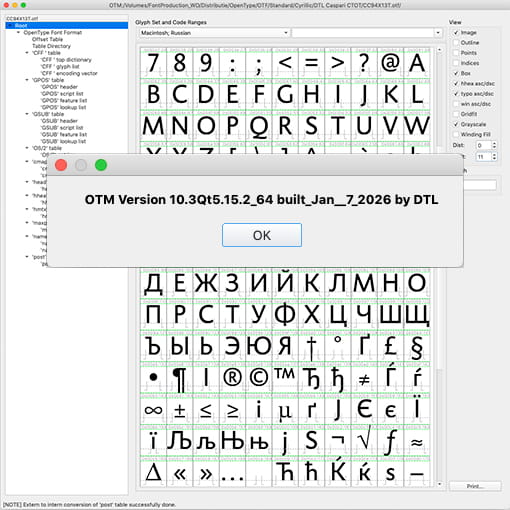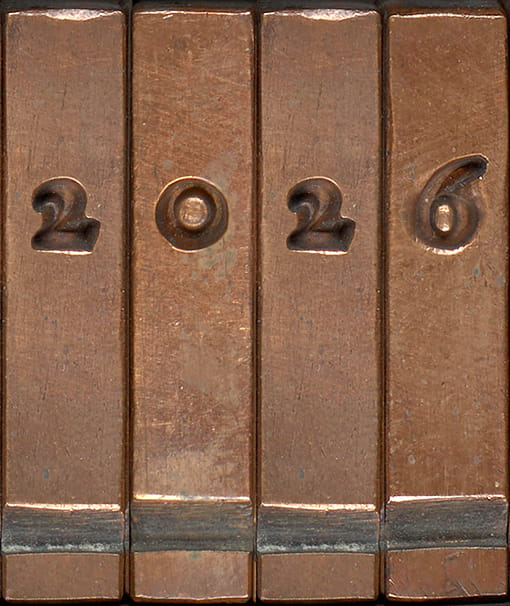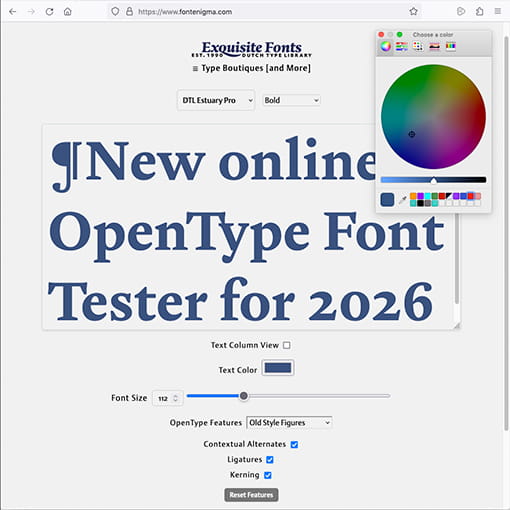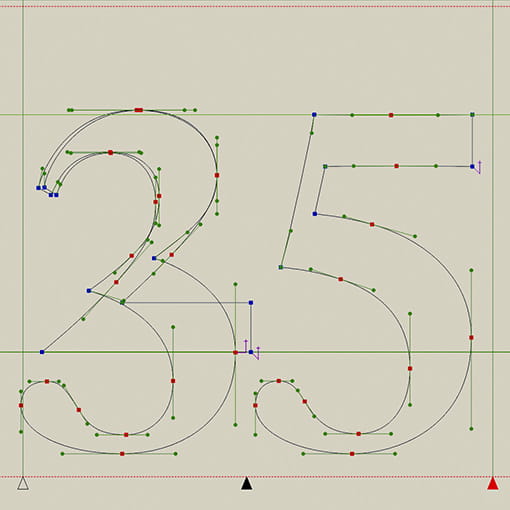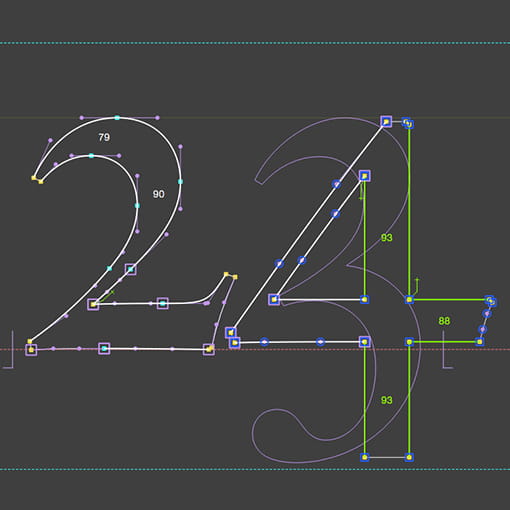
| dtl OTMaster 10.3 Released[Posted: Wednesday January 21, 2026]Since its first appearance, otm has been a success, particularly because it offers comparatively accessible control over highly complex technical matters. Now, after many years of additional development and iteration beyond the last retail version (8.9), otm 10.3 is finally available. This release introduces new tools and features, along with significant improvements to table editing. Moreover, ufo export has been enhanced. The release also includes several minor bug fixes.
| Dutch Type Library in 2026 [Posted: Saturday January 3, 2026] With this row of justified matrices from Reale Romaine by the Flemish punchcutter Hendrik van den Keere (ca. 1540–1580), we wish you all the best for 2026! This type model, which Van den Keere cut in 1575 and was first used by Plantin in 1576, served as the source for the roman of dtl VandenKeere some 35 years ago.
In the past year, we have further automated dtl’s font production as part of the transition of our entire OpenType library from ‘Standard’ to ‘Professional’ and ‘Expert.’ We have also laid the groundwork for variable-font production, using, of course, our own exquisite tools. Additionally, we will be releasing several new typefaces in 2026, including dtl Romulus, which have been in development over the past three decades. Soon, we will also release version 10 of dtl OTMaster, which now natively supports Apple Silicon and is code-signed for macOS to ensure smooth installation.
Last year, we developed a new obfuscated font tester, which will eventually replace the current Exquisite Fonts website later this year. Additionally, we have created a test environment for webfonts, in preparation for the upcoming new ‘Professional’ versions we are producing specifically for the web. |
| Obfuscated Font Tester [Posted: Monday November 3, 2025] Unfortunately, fonts are often harvested and redistributed for free by third parties without the consent of the copyright holders. Fonts exposed on the web are relatively easy to collect once served in a browser. While extracting them is both unethical and legally questionable, it still occurs, including via type testers designed to benefit the graphic-design community.
To mitigate this, we developed FontEnigma, a web environment for testing dtl fonts as securely as possible. FontEnigma applies obfuscation at both the font and browser levels: Unicode code points are scrambled, contours are simplified, and glyphs rearranged. This ensures that fonts displayed online are unusable outside the FontEnigma environment. Additionally, served woff2 files are xor-encrypted and decrypted only in the browser. Fonts are loaded via FontFace and referenced with temporary ‘blob: urls’, which expire on page refresh or close. This makes it considerably harder to download the font files directly.
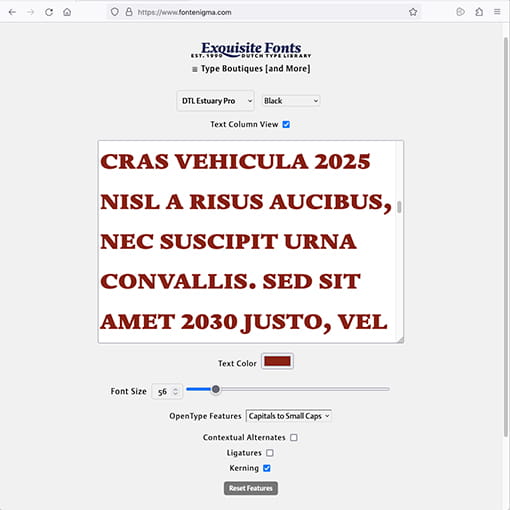  The goal is to implement the new structure on the ExquisiteFonts website in about a year. |
| Origin of Type Frameworks [Posted: Tuesday May 13, 2025] It is essential that our field embraces diverse perspectives and teaching methods. Traditional type-design education often begins with drawing individual letterforms, followed by iterative spacing adjustments. This detail-first approach encourages ‘eyeballing’ and internal corrections, rather than working from broader, pattern-based structures. As a result, what could be concrete, measurable, and reproducible often becomes unnecessarily opaque.
Patterning, and the standardization it entails, has always been central to movable type. Early punchcutters relied on the intrinsic standardization in handwritten models to systematize font production, organizing letterforms within fixed-width rectangles. This method ensured consistency, efficiency, and industrial scalability –key to both design quality and industrial strength.
The new Origin of Type Frameworks (otf) course, taught by Dr. Frank E. Blokland and Dr. Jürgen Willrodt (see photo), builds on this foundation, advocating for a pattern-based approach not just as a historical study, but as a practical, contemporary method for designing typefaces. The associated press release (pdf) can be found here. |
| dtl FontDropper [Posted: Wednesday February 27, 2025] The Dutch Type Library has released a new online tool to test OpenType (variable) fonts: dtl FontDropper. The tool is intended as a service for our customers to easily check (most) functionality of dtl fonts. It is actually a spin-off of a new font tester for our websites that is currently in development and invokes font obfuscation. We use the dropper internally for some web testing alongside dtl OTMaster for more intensive font checking on the desktop.